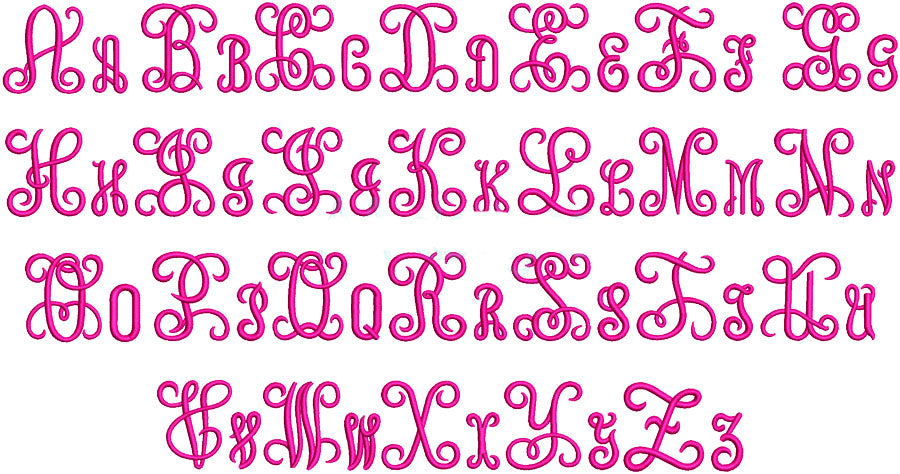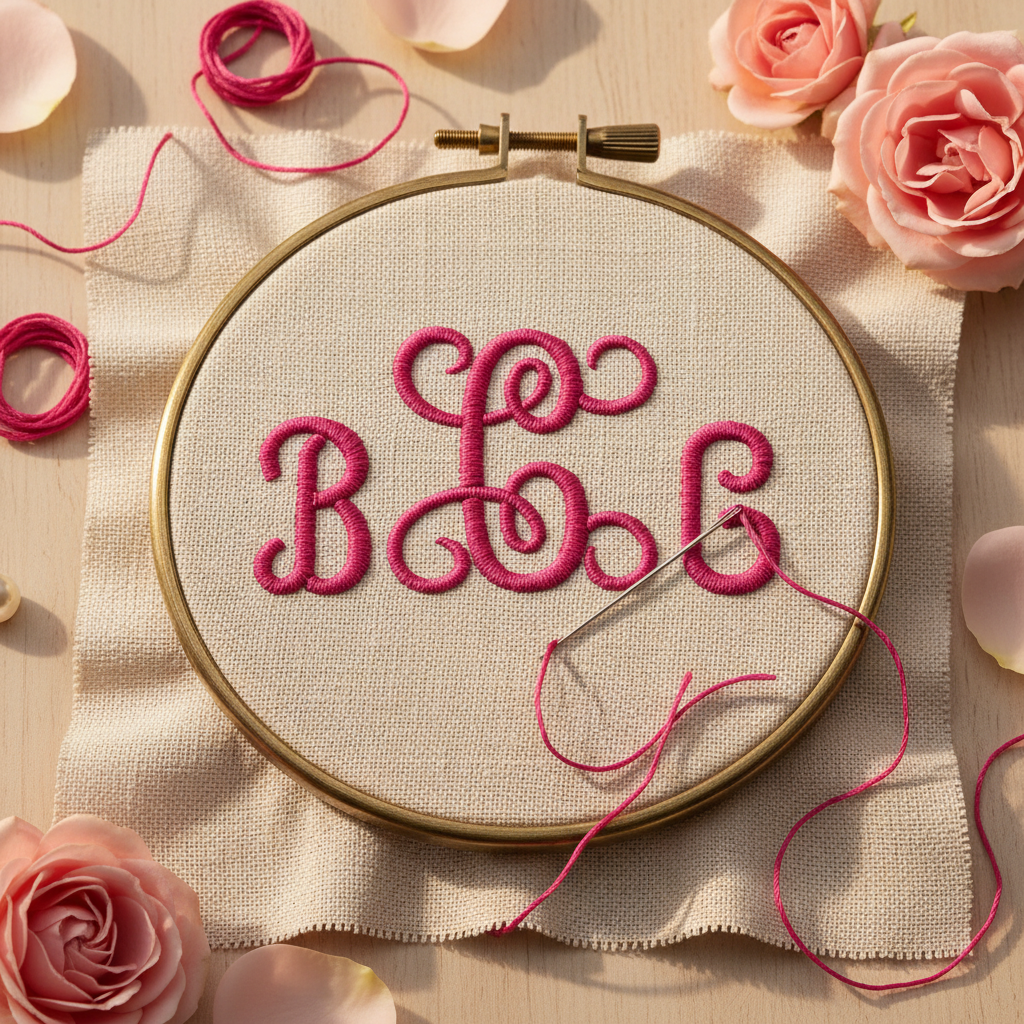
Add a graceful, flowing touch to your embroidery projects with the Script Swirl Embroidery Font. This digital embroidery font is perfect for monograms, names, gifts, and personalized keepsakes.